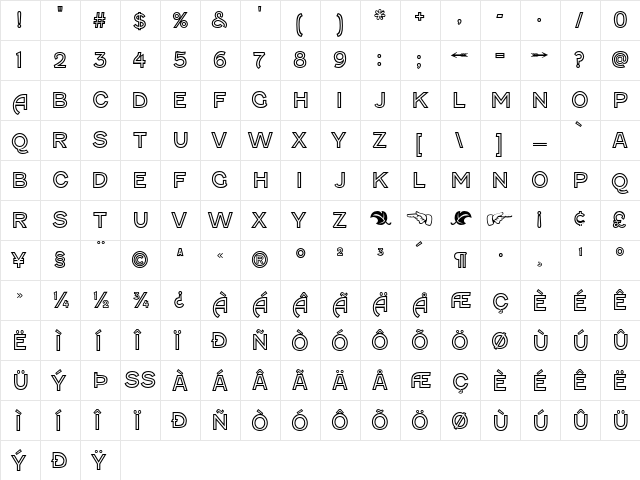
Fenwick Outline Free Regular
Regular · Ray Larabie Ray Larabie ·
Foundry Ray Larabie
DesignerRay Larabie
Design Context for Fenwick Outline Free Typeface
Fenwick Outline Free brings ornamental detail and strong personality to headlines and identities, where visual impact matters more than quiet functionality.
Font Pairing: Pair with a clean neutral sans-serif for body copy to let Fenwick Outline Free's character lead without overwhelming the composition.
Pro Tip: Treat Fenwick Outline Free as the centrepiece of your typographic hierarchy. One strong heading set in a decorative face can carry an entire layout.